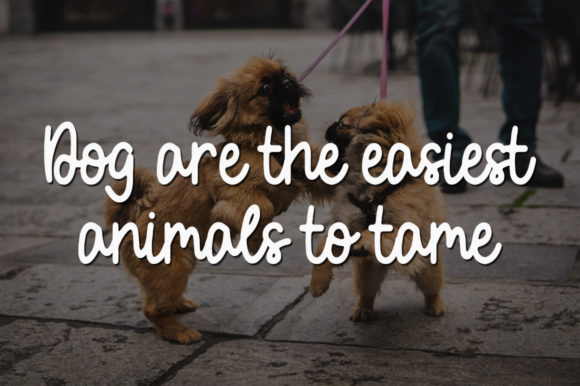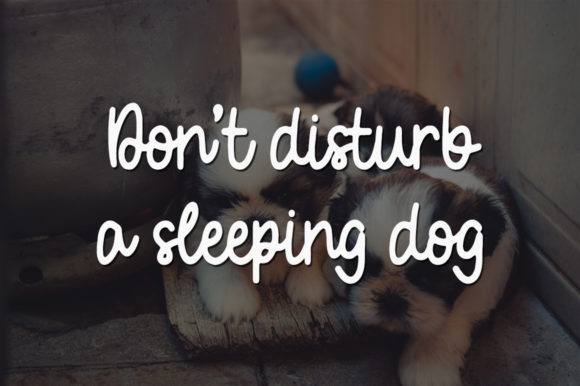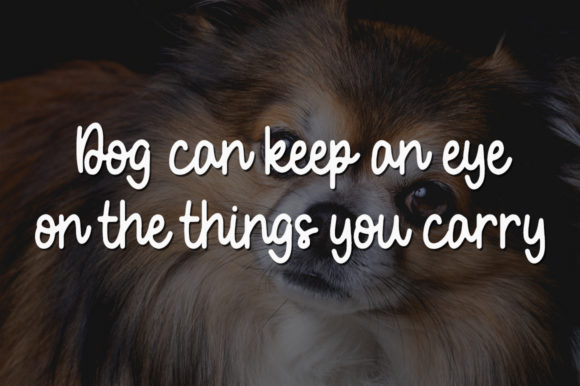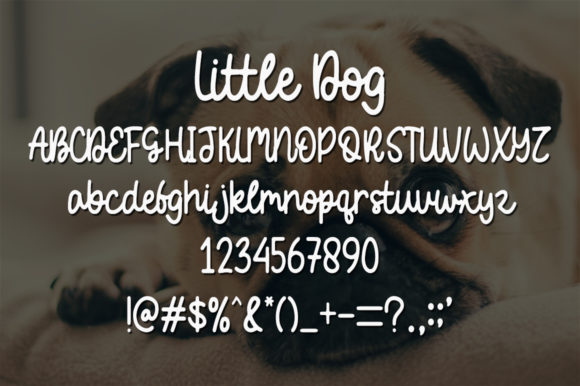
Introduction to Little Dog Font
Have you ever stumbled upon the perfect design element while working on a creative project, and you just can’t imagine the project without it? That’s exactly what happened to many designers when they discovered the Little Dog Font. This sweet and delicate handwritten font has become a staple in many design collections, and for good reason.
As a valuable resource for designers, the Little Dog Font offers a high-quality, readable, and friendly design solution that can elevate any project, from formal invitations to informal social media graphics. Its free download has made it a go-to choice for creatives looking to add a personal touch to their work. Whether you’re working on a design project with a transparent background or need a design resource that exudes warmth and approachability, the Little Dog Font is an excellent choice.
Key Features of Little Dog Font
- High-quality design: The Little Dog Font is a premium font designed for creative projects, offering a unique and playful style.
- Unique characteristics: The Little Dog Font features a distinctive, hand-drawn design with bold lines and playful details, making it perfect for creative projects.
- Design resource: The Little Dog Font is an excellent addition to any designer’s toolkit, offering a versatile and creative resource for a variety of projects.
Honest Review: Little Dog Font
I recently stumbled upon the Little Dog Font while searching for a high-quality design resource for a creative project. As a designer, I was excited to give it a try and see if it lived up to its promise.
- ✨ The font’s transparent background makes it easy to use as a design element, allowing for seamless integration into various design projects.
- ✨ The Little Dog Font comes in a range of styles, making it suitable for a variety of creative applications, from logos to illustrations.
- ⚠️ The font may not be suitable for use in situations where a solid background is required, as it can become difficult to read.
- ⚠️ Some users may find the font’s quirky style to be a bit too playful for certain design applications.
Overall, I was impressed with the Little Dog Font’s versatility and high-quality design. While it may have some limitations, it’s definitely a valuable resource for designers looking for a unique and creative element to add to their projects.
Tips for Getting the Most Out of Little Dog Font
Use the font in combination with other design elements to create a visually appealing design. Experiment with different sizes and colors to find the perfect combination. Take advantage of the font’s transparent background feature to create a seamless design.
The Little Dog Font is perfect for a variety of projects, including social media graphics, blog posts, and marketing materials. Its high-quality design makes it a great choice for any creative project. With its free download feature, you can use it as a design resource for any project, big or small.